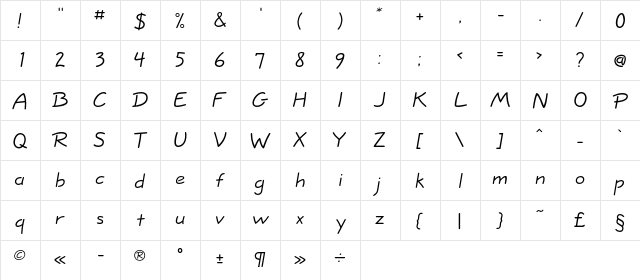
EskizOneLightC Regular Font Preview
EskizOneLightC Regular
EskizOneLightC Regular Font Details
Design Context for EskizOneLightC Typeface
EskizOneLightC takes a measured approach to typography — its balanced proportions and neutral character make it a reliable workhorse for both digital and print work. Its slender proportions lend an understated elegance to any composition.